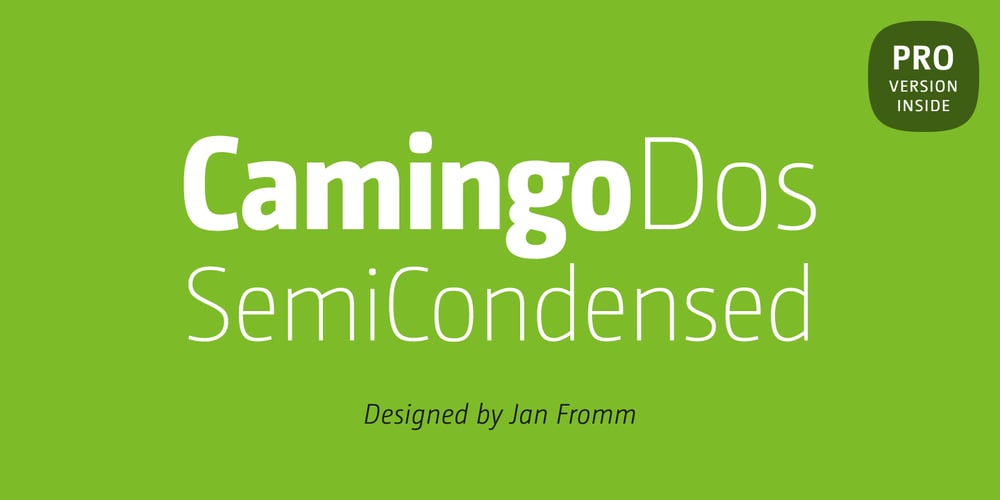
CamingoDos SemiCondensed Font Family was designed by Jan Fromm and published by Jan Fromm. CamingoDos SemiCondensed contains 28 styles and family package options. CamingoDos SemiCondensed fills the gap between CamingoDos and CamingoDos Condensed and combines them to a homogeneous and versatile type family. The flexibility of the semi-condensed version makes it a typographic all-rounder. On the one hand CamingoDos SemiCondensed is perfectly suited for compact headline settings. On the other hand, it works well as an ergonomic, space-saving typeface for large texts. CamingoDos SemiCondensed comes with a Pro version that offers a rich set of expert typographic features like small caps, ligatures, stylistic alternates, different figure sets, arrows, fractions and ordinals.